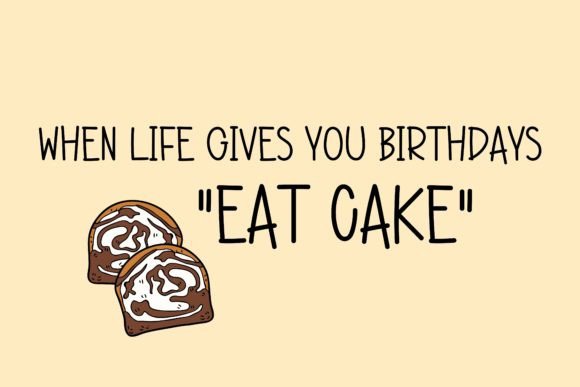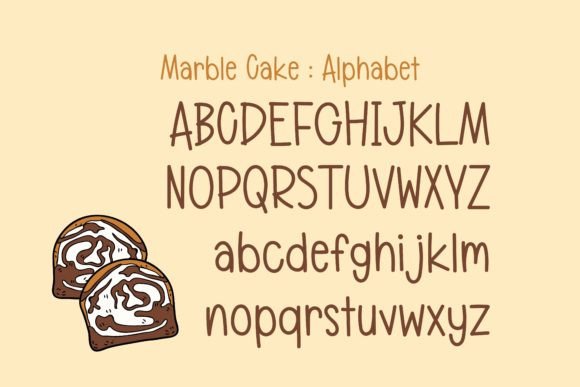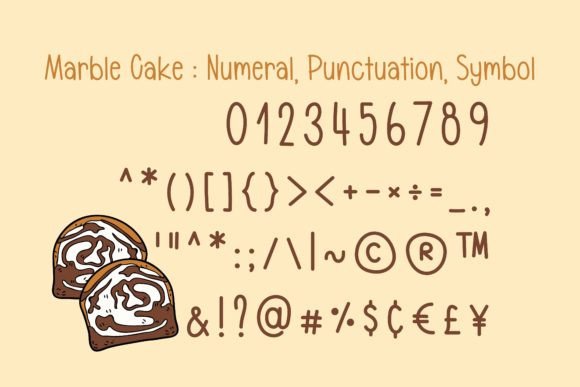
Introduction to Marble Cake Font
Marble Cake is a fun and friendly handwritten font.
It has a modern yet whimsical style and it will undoubtedly immerse your designs into a magical world .